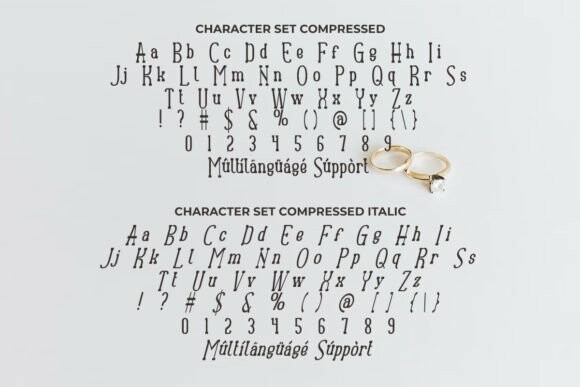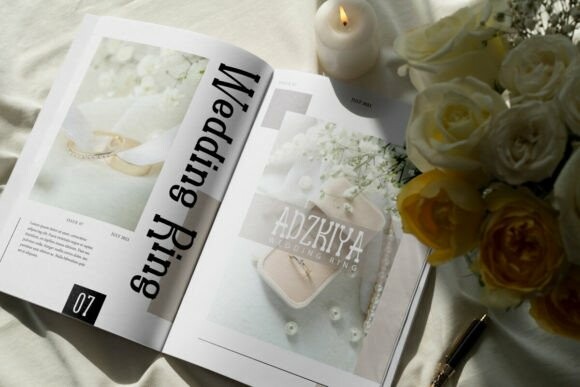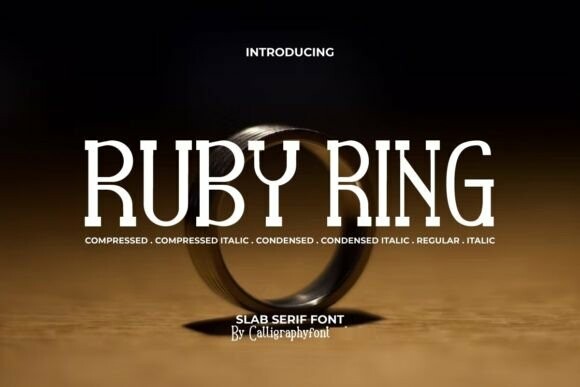
Ruby Ring Font
Designer: CalligraphyFonts
Ruby Ring Font is a unique slab serif display font that packs in six styles: Regular, Italic, Compressed, Compressed Italic, Condensed, and Condensed Italic. This type of font gives a modern impression and feels expensive. Its unique, tall shape is adapted from a serif base so it will suit any industry, such as accessories, author, café, event organizing, fashion, furniture, handicraft, honey manufacturers, jewelry, photography, pottery, printing, publishing, restaurant, wedding, and many more.